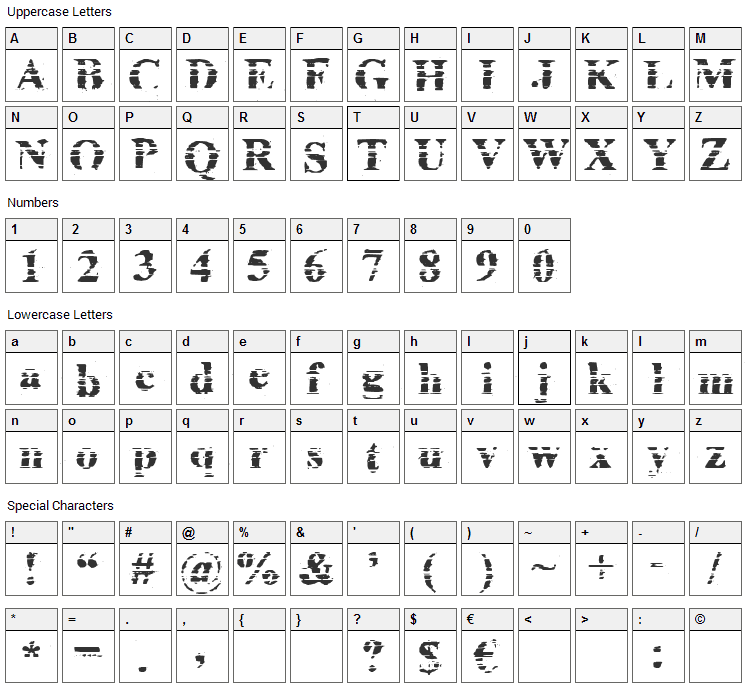
Cheap ink killed my printer Font
Font Name:Cheap ink killed my printer
Developer:anke-art
Category:Fancy > Destroy
Finally a new font... You could call it a "Reality Font" - my poor printer may rest in peace.